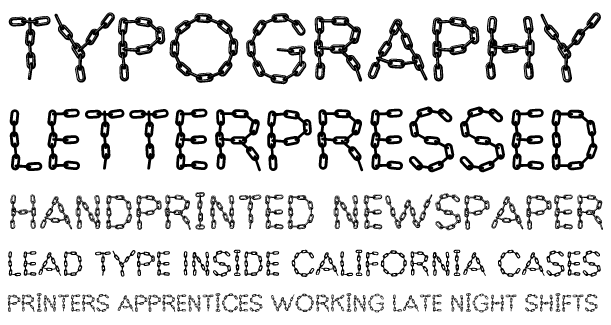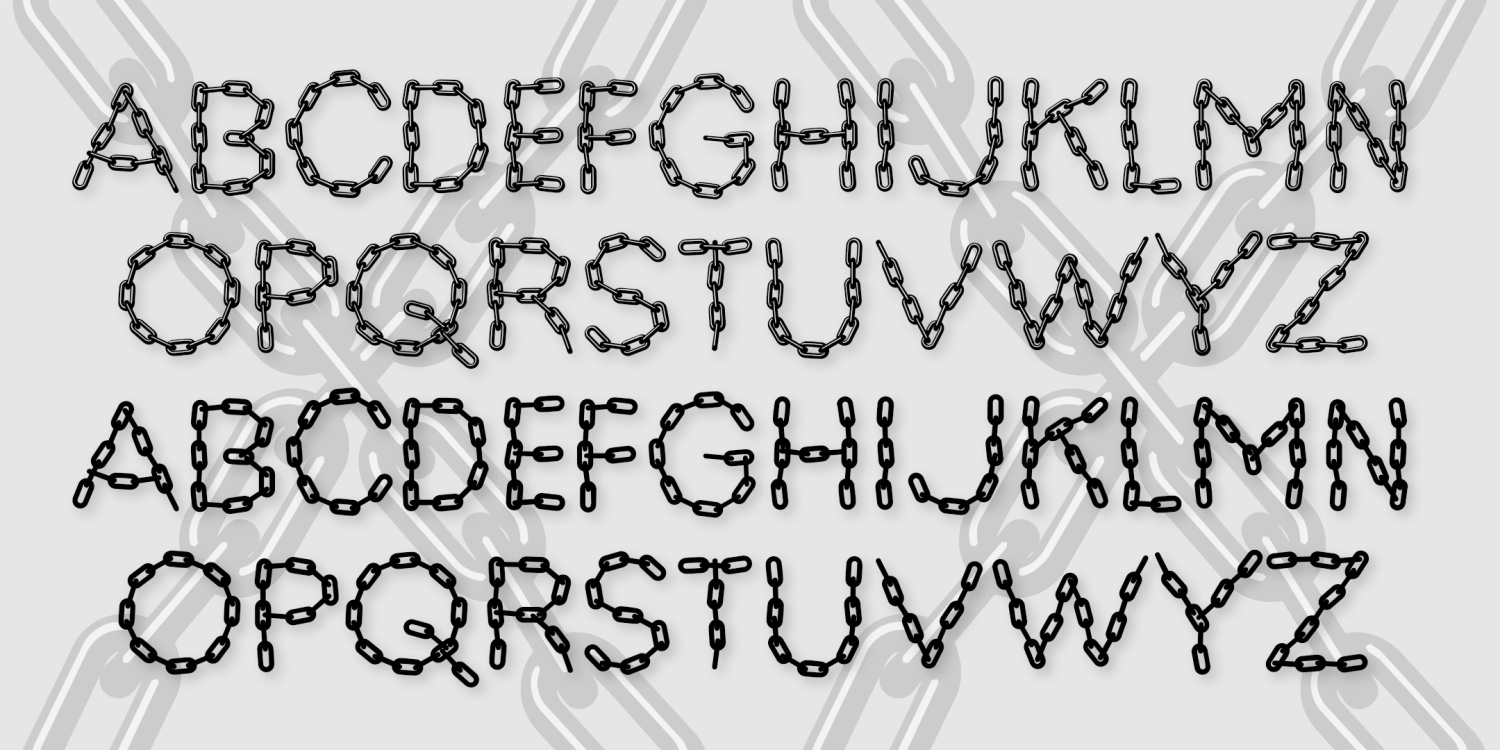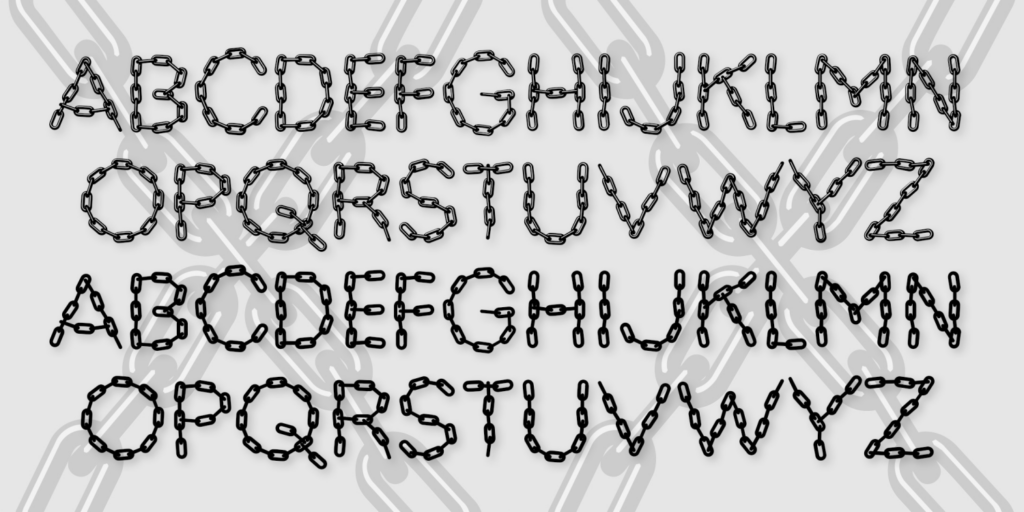
About Linx
Linx is a pair of fonts designed to look like letters formed with chain. A companion to my Bead Chain font, this one feels more like it's been arranged by hand. One version is solid, the other has highlights for a three-dimensional look.